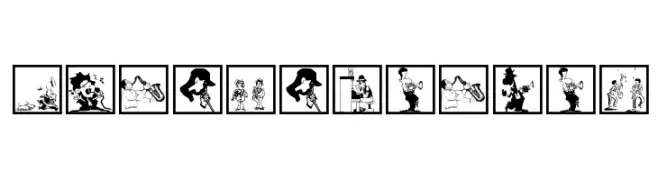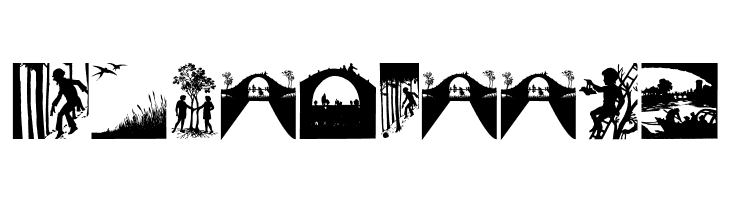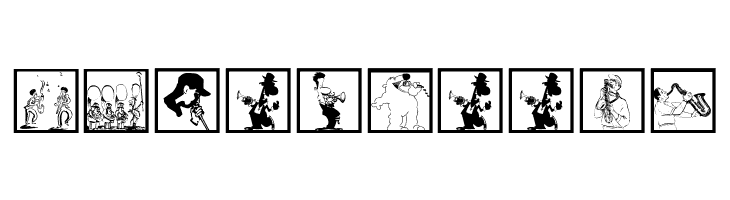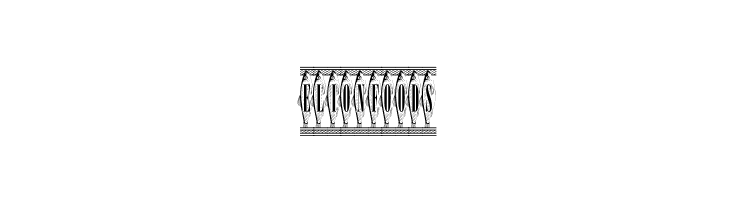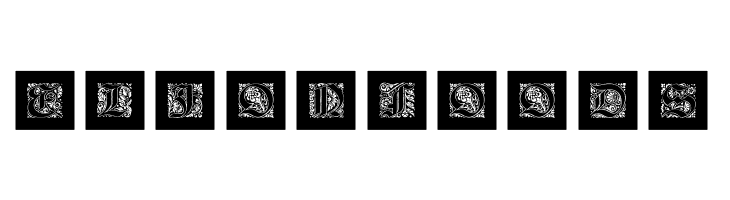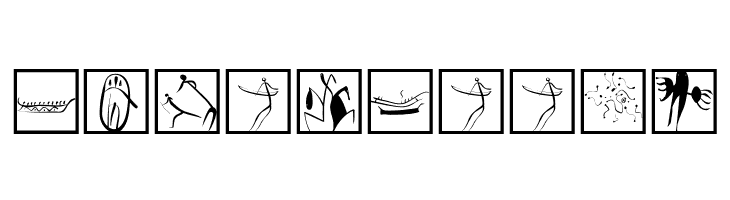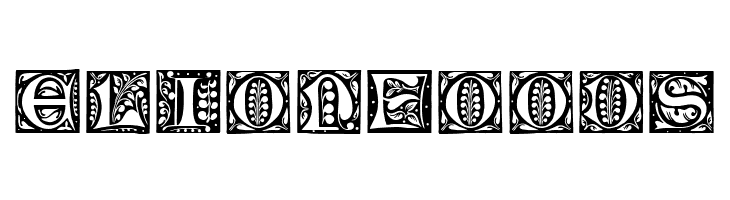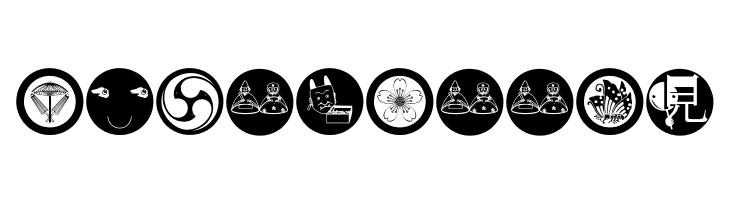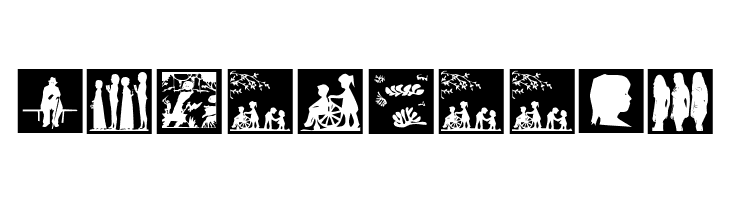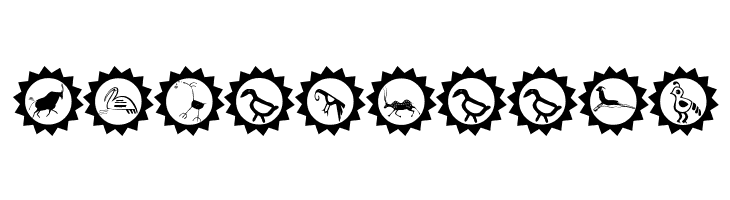
An ornate and decorative font with intricate, swirling patterns and high contrast.
A pictorial silhouette font featuring playful and narrative scenes.
Cartoonish, illustrated font with musical character scenes.
A whimsical, decorative font with playful, circus-themed characters enclosed in squares.
( Fonts by Daniel Gauthier )
A decorative font with ornate, vintage-inspired detailing and bold, angular characters.
An ornate and decorative font with intricate, vintage-style embellishments.
Primitive pictographic symbols resembling ancient cave drawings.
An ornate, medieval-inspired decorative font with intricate floral designs.
A collection of decorative icons with cultural and abstract motifs.
Ornate silhouette illustrations form each character in a paper-cut style.